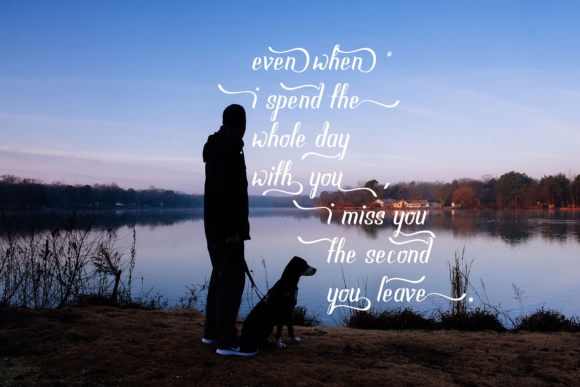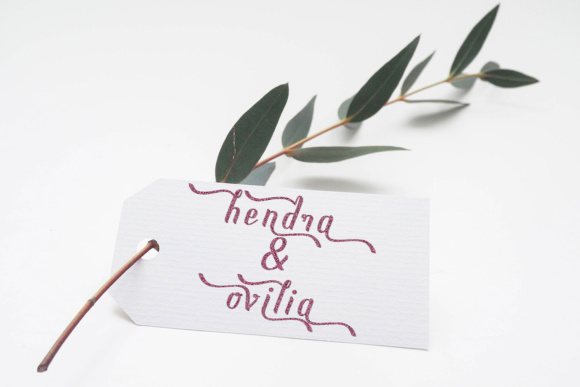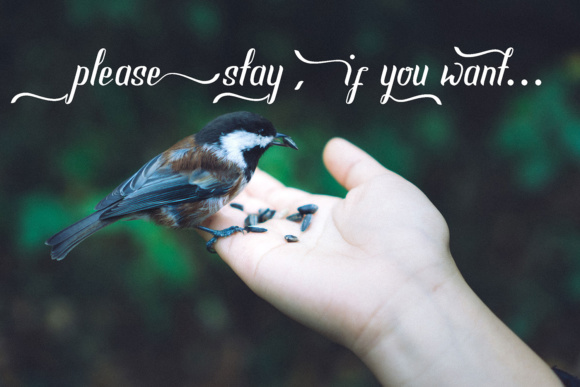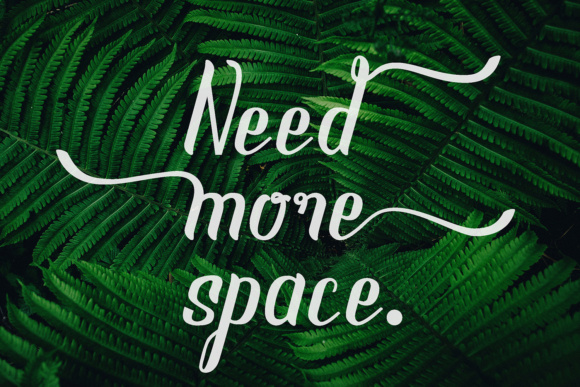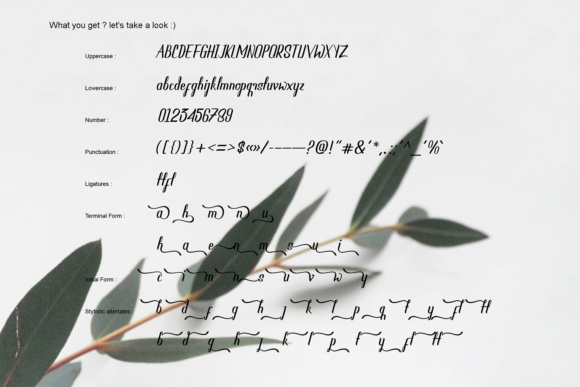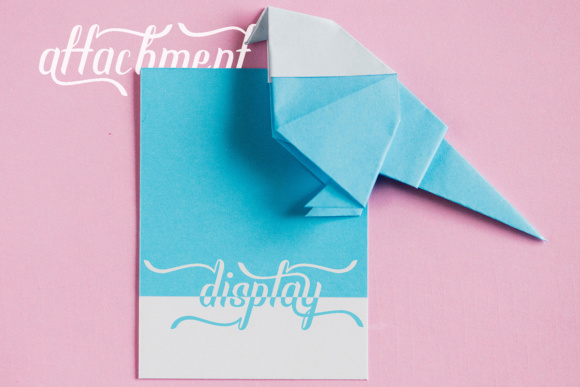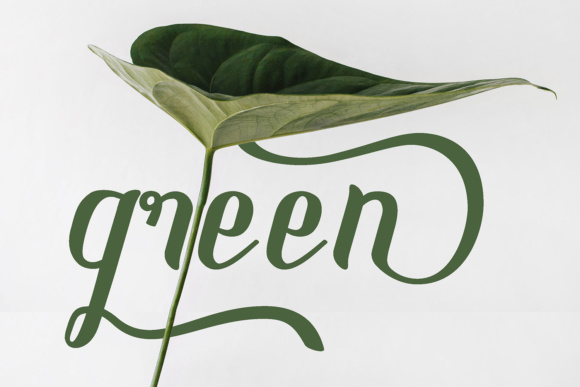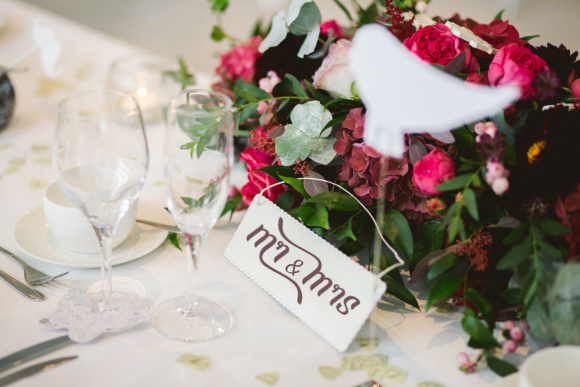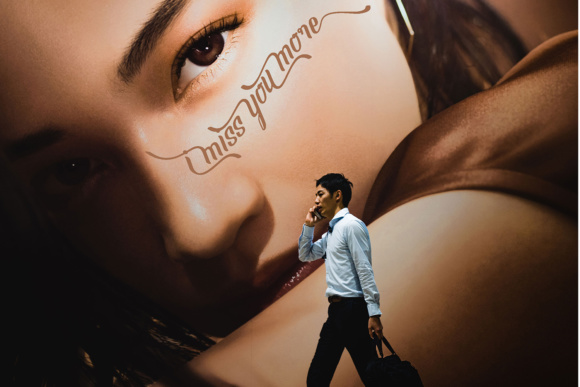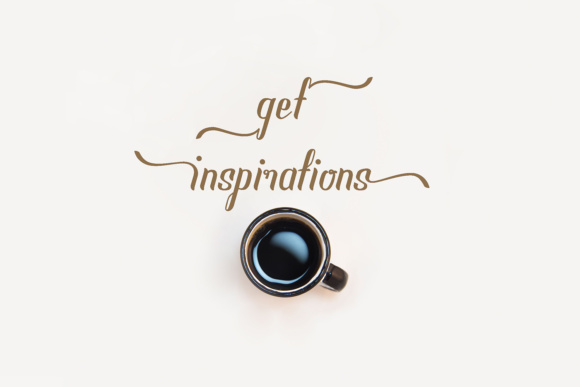
New Scraper Font
About New Scraper Font
The New Scraper is a beautiful script font included with elegant swashes. It will give your design a feminine feel.